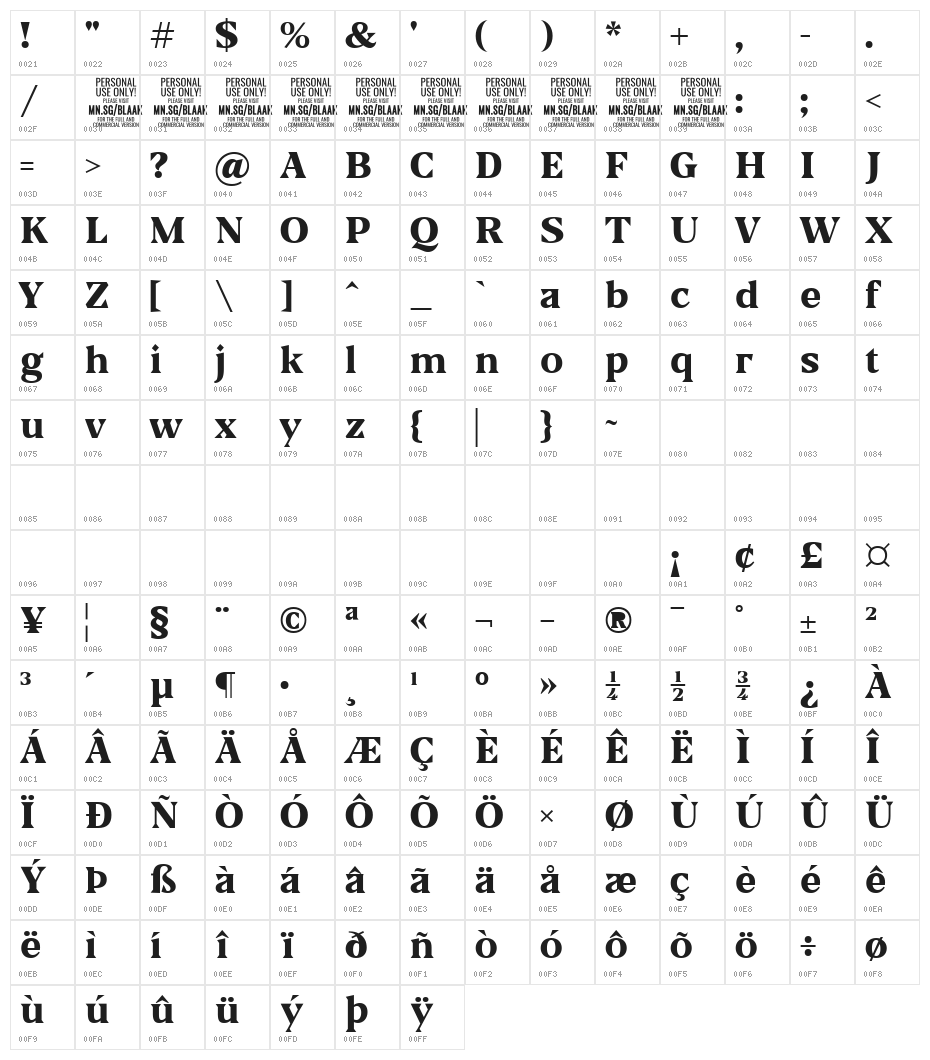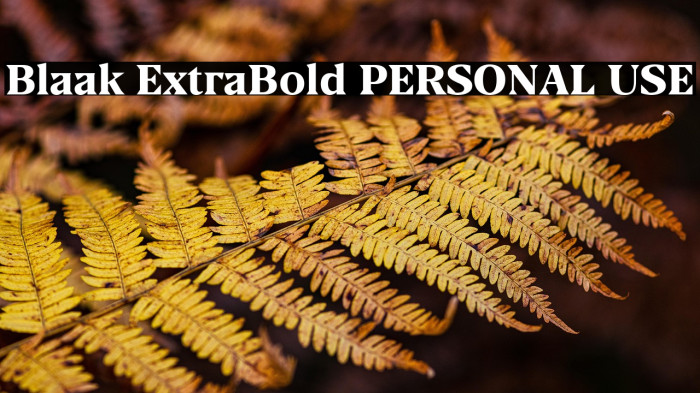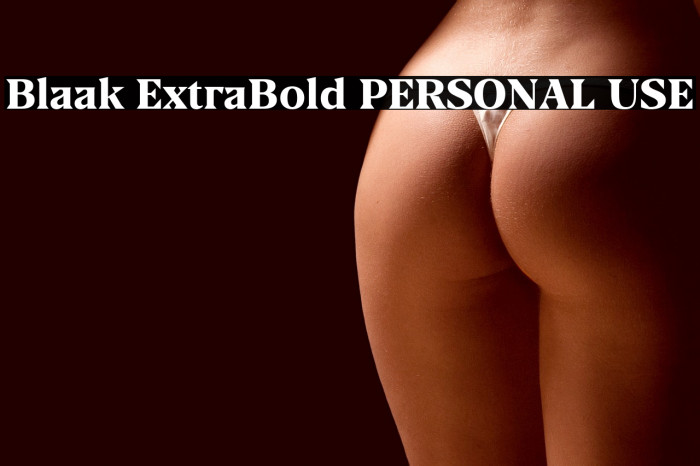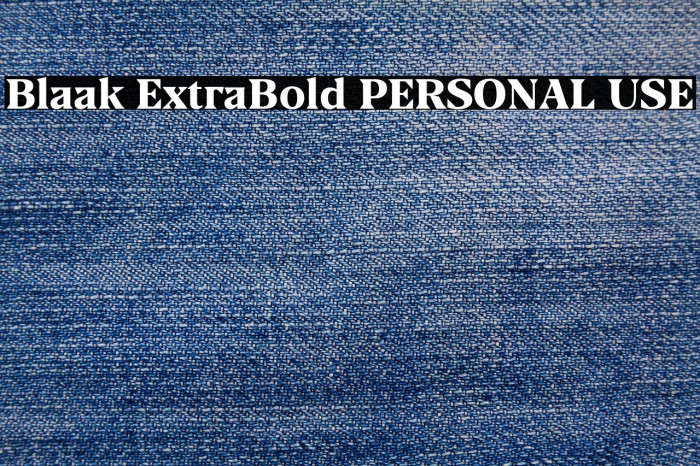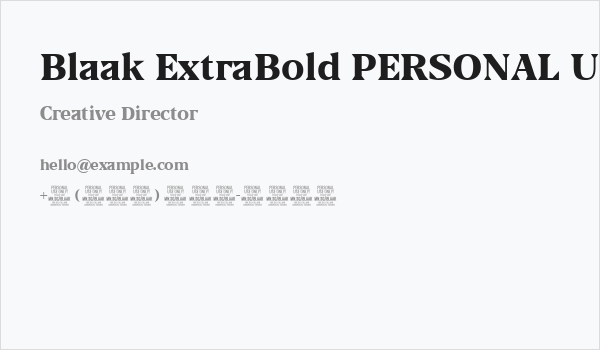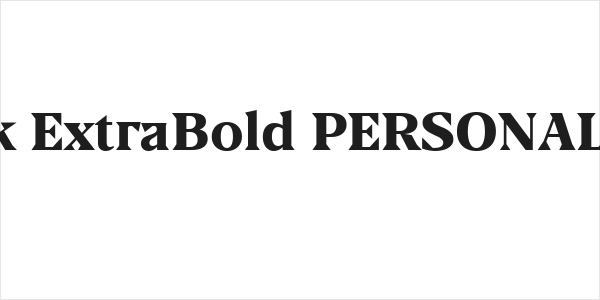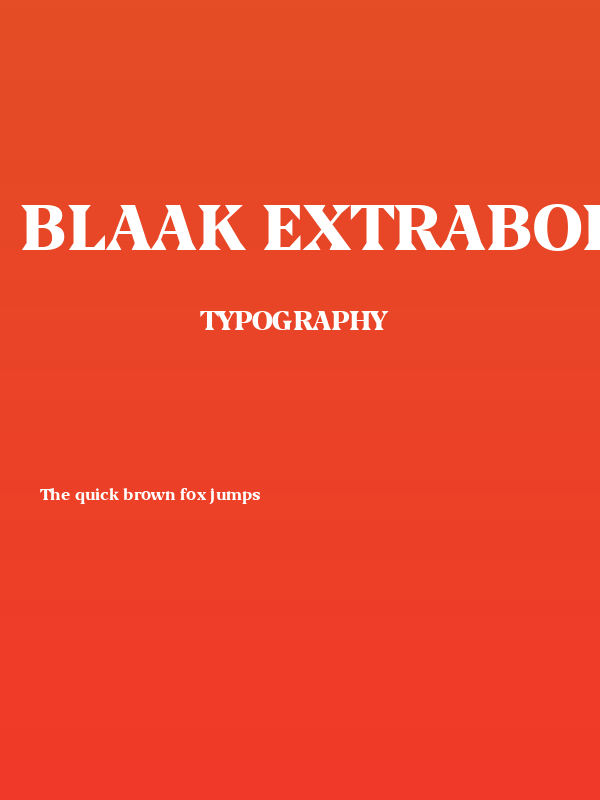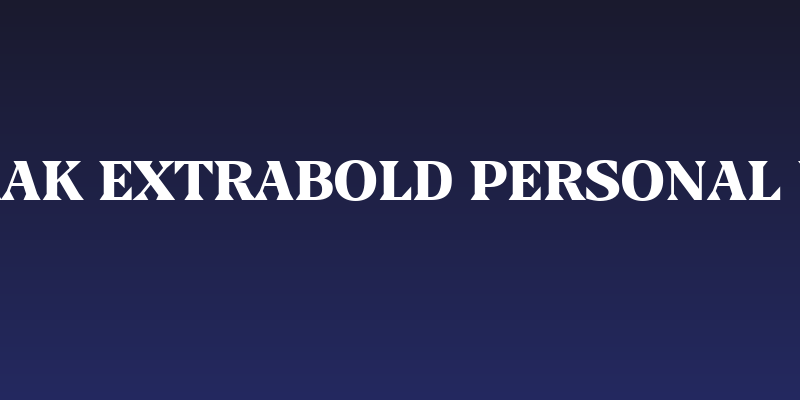
Blaak ExtraBold PERSONAL USE Font
Blaak ExtraBold PERSONAL USE Description
This font features a bold and commanding presence with its thick, strong strokes and high contrast between thick and thin lines. The serifs are pronounced and add a touch of elegance, making it suitable for impactful headlines and titles. The uppercase letters are particularly striking, with a sense of authority and sophistication. The lowercase letters maintain a consistent style, ensuring readability while retaining the bold aesthetic. The numerals and special characters are designed to match the overall boldness, providing a cohesive look across all characters.